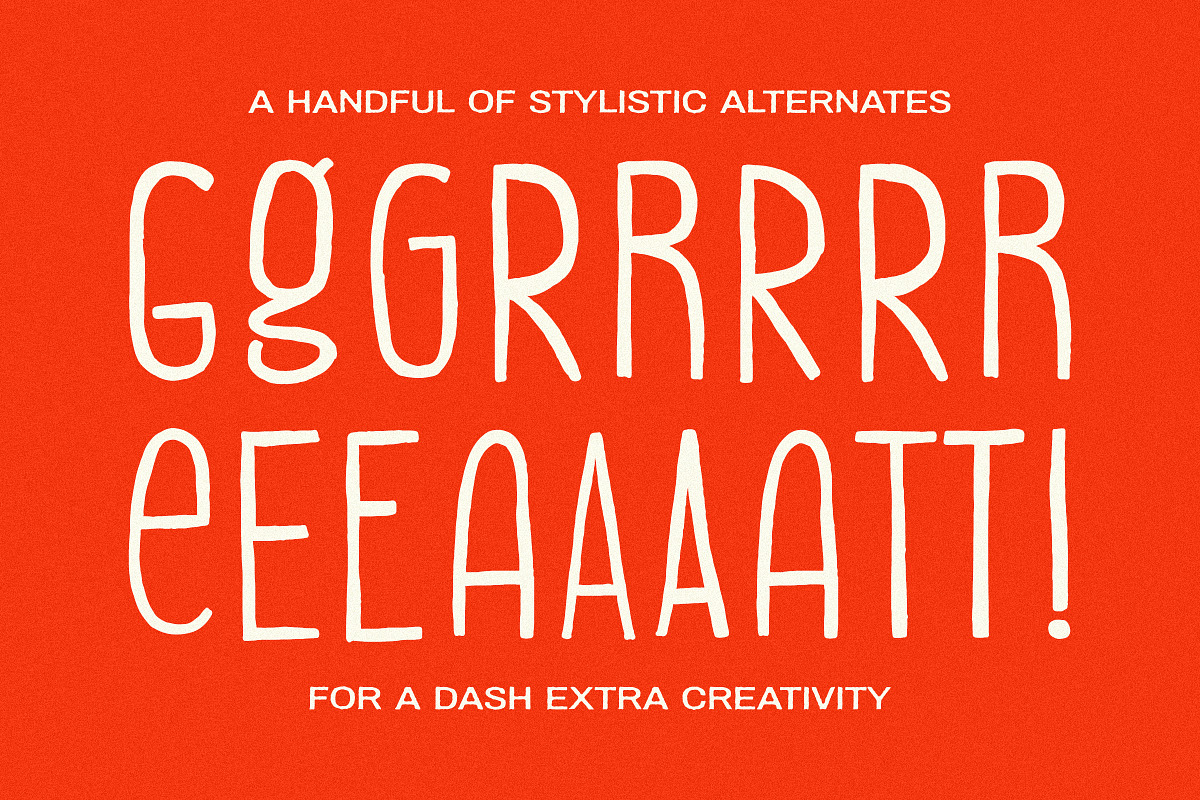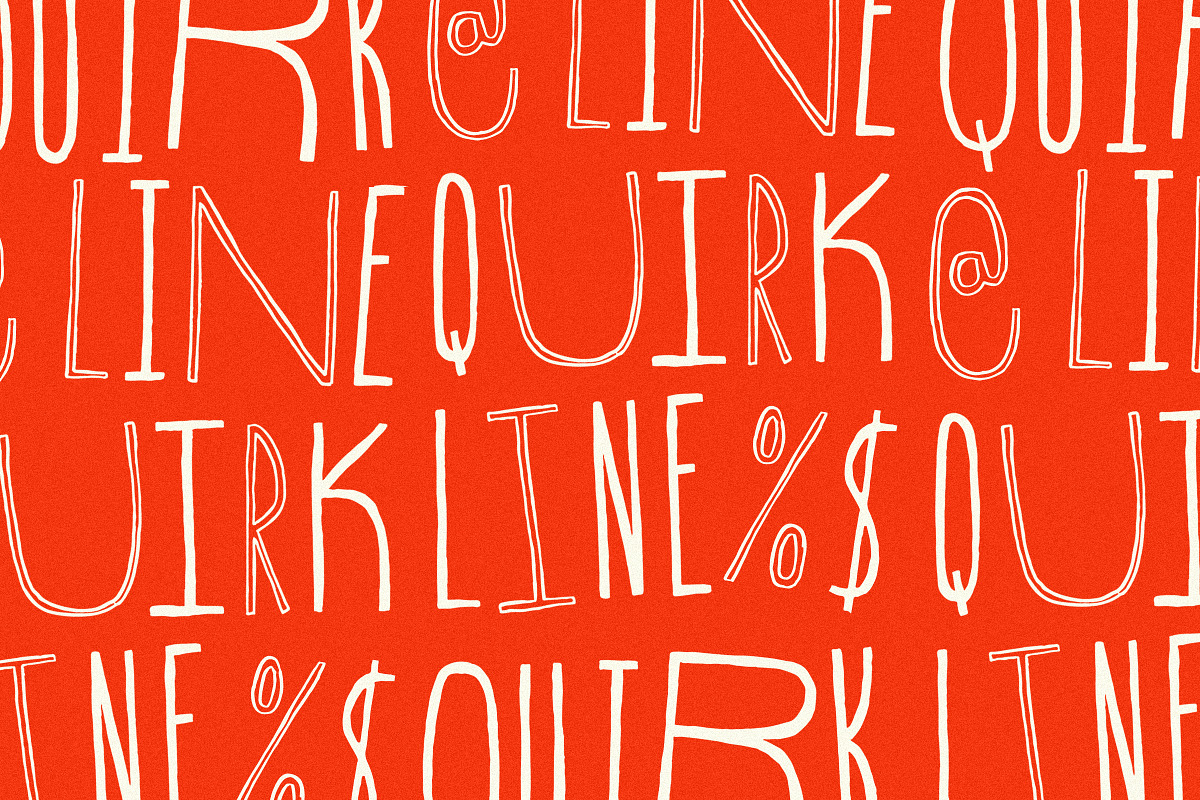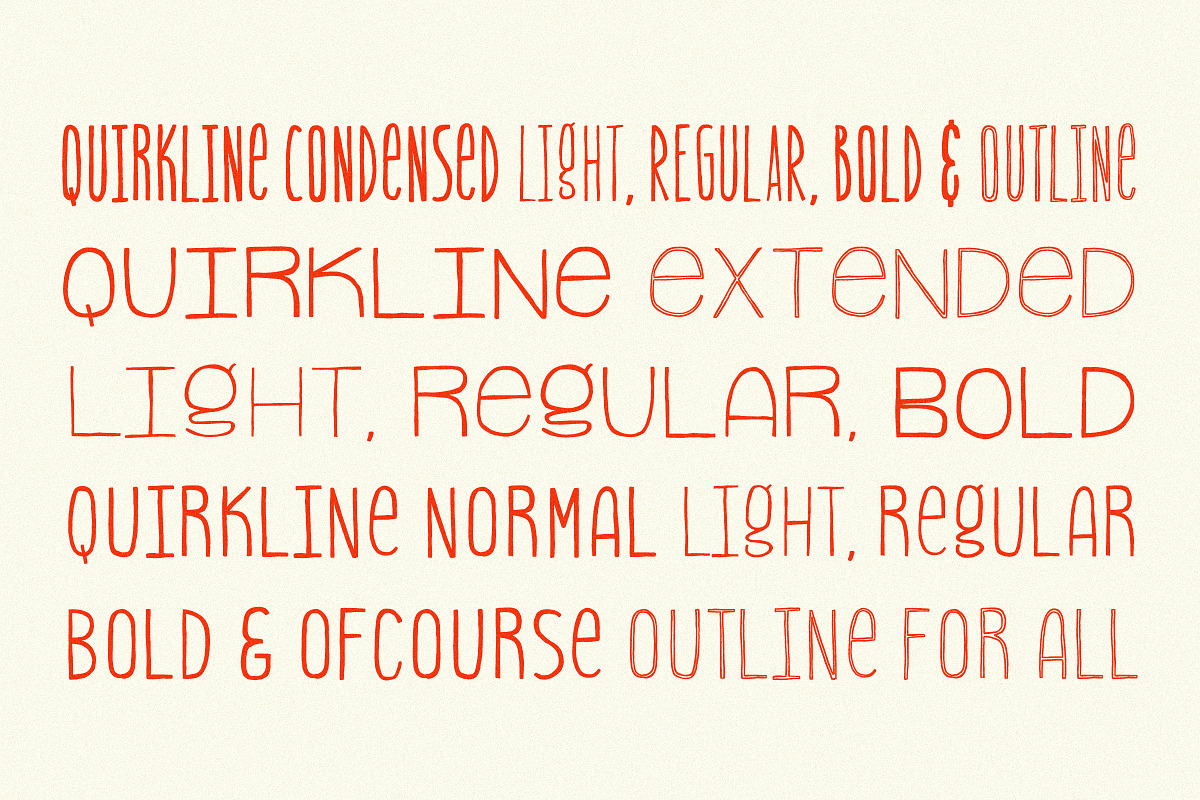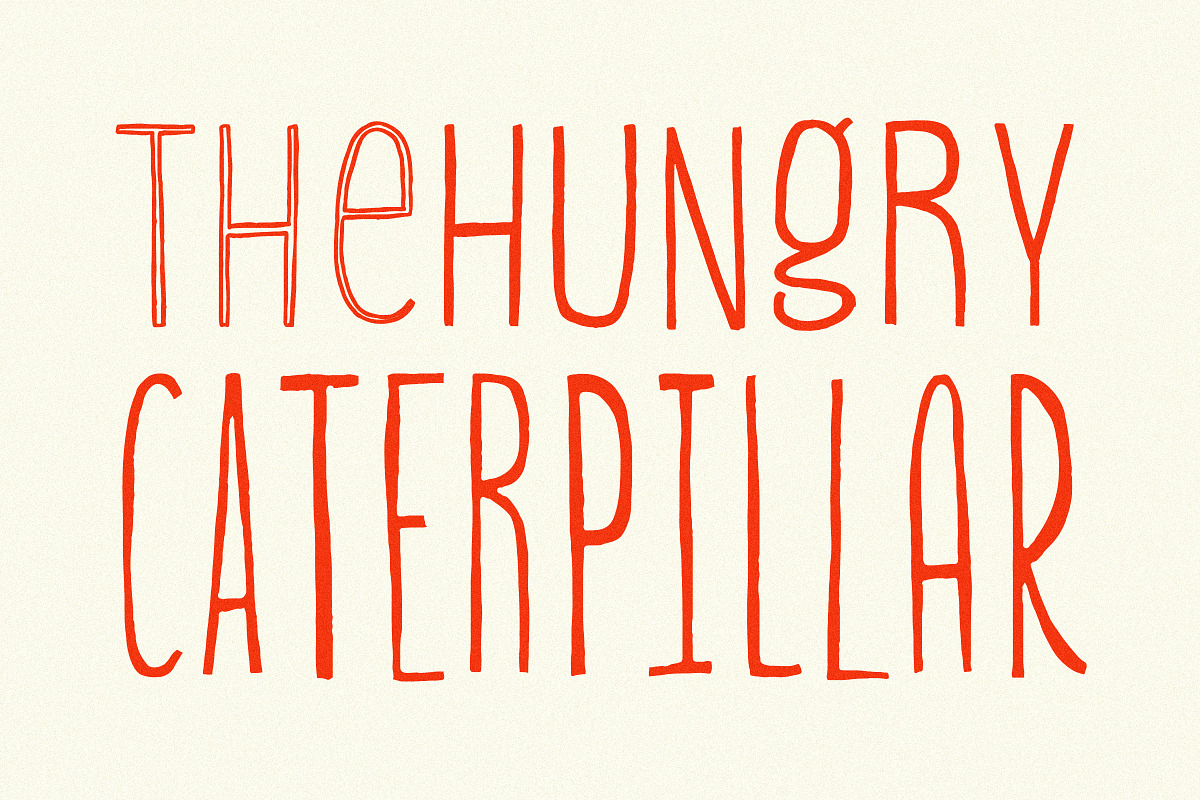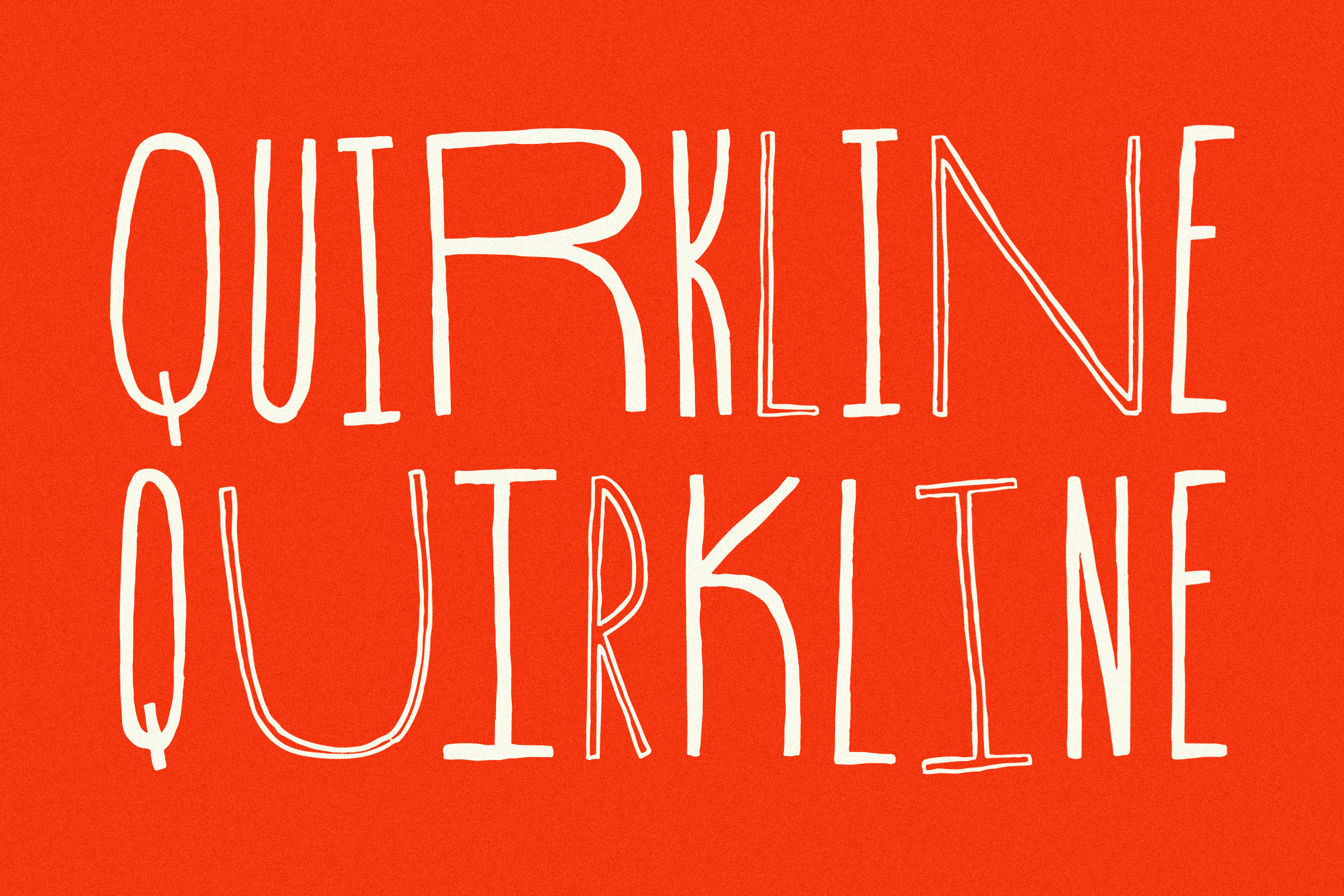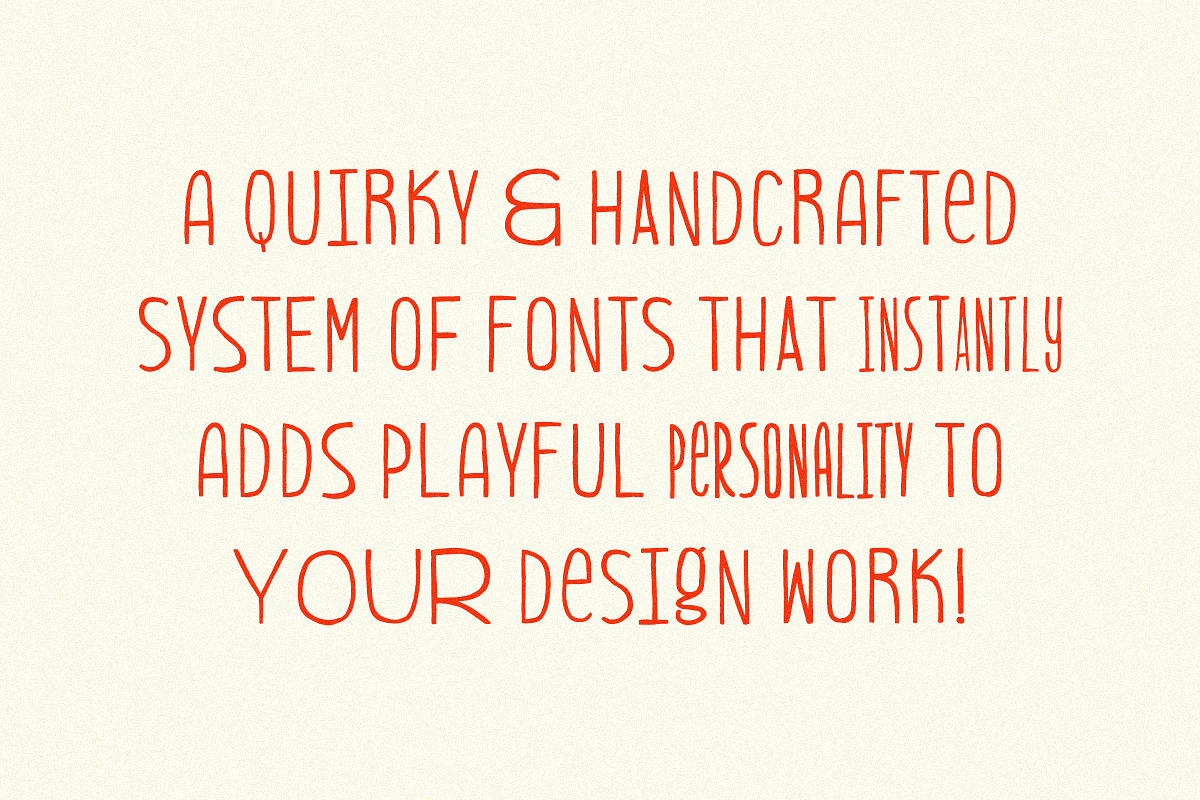
QUIRKLINE - Playful Handcrafted Font
Say hello to Quirkline – a playful, handcrafted font system with plenty of personality.
With 18 fonts to mix and match, Quirkline gives you all the flexibility you need to create bold, quirky, and eye-catching designs. Whether you’re working on branding, packaging, posters, or anything in between, this collection has your back.
- Three widths – Condensed, Regular, and Extended
- Three weights – Light, Regular, and Bold
- Outline versions for every style
Use them solo or stack them up for fun layered effects. Whatever you’re creating, Quirkline keeps things fresh, playful, and packed with character.